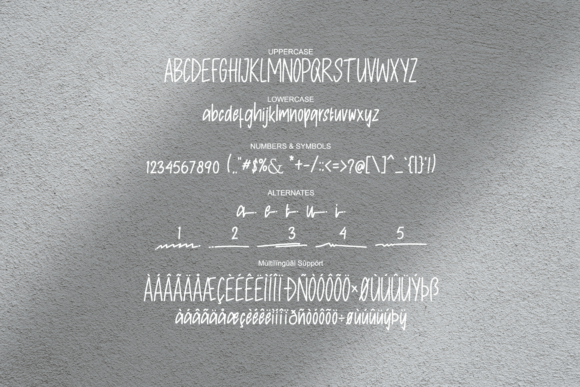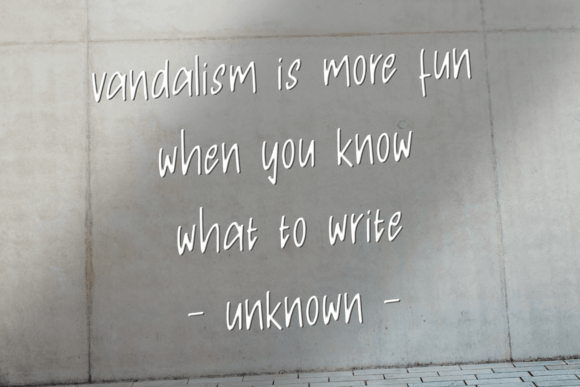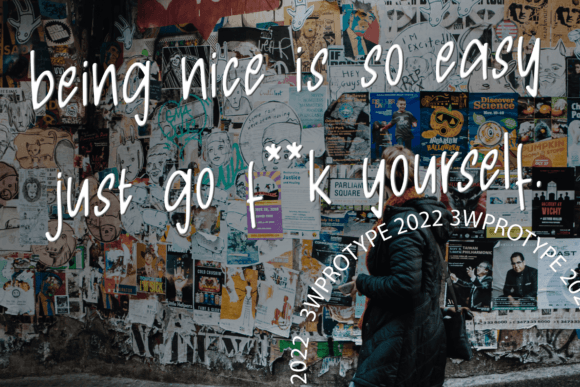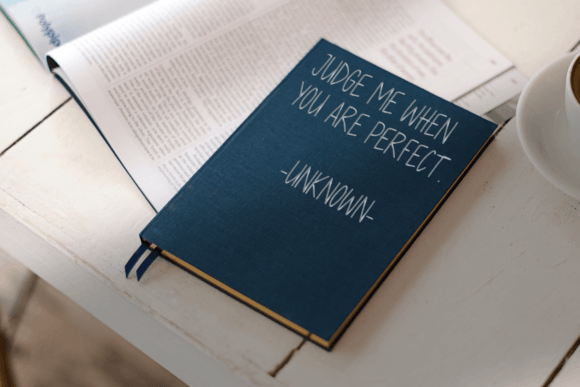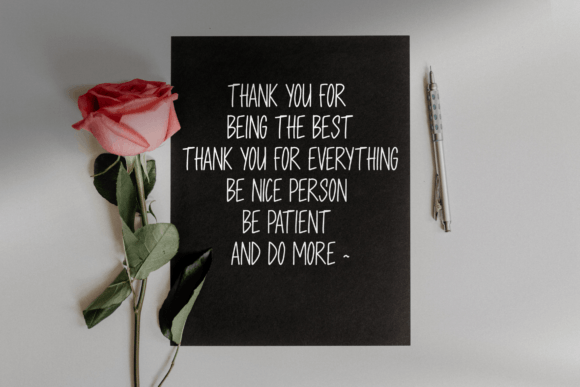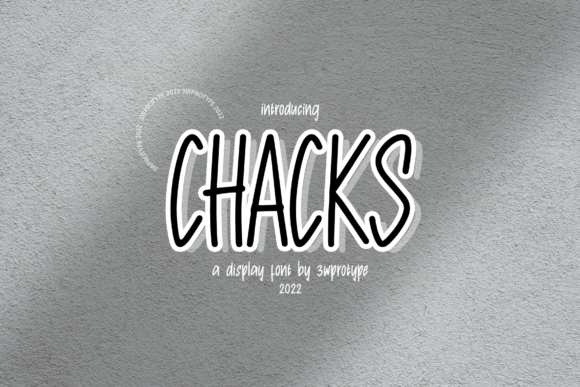
Discover the Charm of Chacks Font: A Fun and Relaxed Typeface for Creative Projects
Are you looking for a font that can add a personal touch to your designs? Look no further than Chacks Font, a fun and relaxed typeface that mimics natural handwriting. This versatile font is perfect for a wide range of creative projects, from letters and quotes to invitations, labels, magazines, and more.
The Characteristics of Chacks Font
Chacks Font is a unique typeface that boasts a natural, handwritten look. Its relaxed and casual feel makes it ideal for designs that require a personal touch. The font is PUA encoded, which means you can easily access a wide range of glyphs and ligatures to add more flair to your designs.
Uses of Chacks Font
Chacks Font is an incredibly versatile typeface that can be used for a variety of creative projects. Here are some ideas to get you started:
- Letters and Quotes: Add a personal touch to your letters and quotes with Chacks Font. Its natural handwriting look makes it perfect for creating heartfelt messages.
- Invitations: Create beautiful invitations for weddings, parties, and other special events with Chacks Font. Its relaxed feel makes it ideal for formal and informal events alike.
- Labels and Packaging: Use Chacks Font to create eye-catching labels and packaging for your products. Its unique look will help your products stand out on store shelves.
- Magazines and Books: Add a touch of personality to your magazines and books with Chacks Font. Its natural look makes it perfect for articles, headings, and titles.
- Greeting and Wedding Cards: Create beautiful greeting and wedding cards with Chacks Font. Its relaxed feel makes it ideal for expressing your emotions.
- Fashion and Makeup: Use Chacks Font to create stunning fashion and makeup designs. Its unique look will help you create eye-catching headlines and titles.
- Stationery: Create beautiful stationery with Chacks Font. Its natural look makes it perfect for notebooks, journals, and other paper products.
- Novels and Short Stories: Add a touch of personality to your novels and short stories with Chacks Font. Its relaxed feel makes it ideal for creating engaging and immersive reading experiences.
- Advertising: Use Chacks Font to create eye-catching advertisements for your products or services. Its unique look will help you grab the attention of your target audience.
The Benefits of Using Chacks Font
Chacks Font offers a range of benefits for designers and crafters. Here are some of the advantages of using this versatile typeface:
- Unique Look: Chacks Font has a unique, natural look that will help your designs stand out from the crowd.
- Versatility: Chacks Font can be used for a wide range of creative projects, from letters and quotes to invitations and labels.
- PUA Encoded: Chacks Font is PUA encoded, which means you can easily access a wide range of glyphs and ligatures to add more flair to your designs.
Tips for Using Chacks Font
Here are some tips for using Chacks Font in your designs:
- Experiment with Different Sizes: Chacks Font looks great in a variety of sizes, from small headings to large titles.
- Combine with Other Fonts: Chacks Font can be paired with other fonts to create stunning contrast and visual interest.
- Use for Headings and Titles: Chacks Font is perfect for headings and titles, adding a touch of personality to your designs.
- Don’t Be Afraid to Get Creative: Chacks Font is a versatile typeface that can be used in a wide range of creative projects. Don’t be afraid to experiment and try new things!
Chacks Font is a fun and relaxed typeface that can add a personal touch to your designs. Its natural handwriting look makes it perfect for a wide range of creative projects, from letters and quotes to invitations and labels. With its PUA encoding and easy-to-use design, Chacks Font is a great choice for designers and crafters alike. So why not give it a try and see how it can elevate your designs?